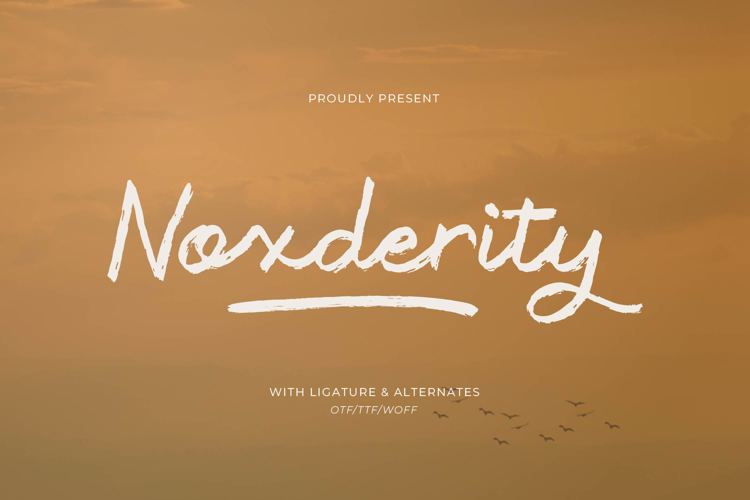
Noxderity Font
Noxderity Brush Font is suitable for any projects such as: logos, branding projects, homeware designs, product packaging, mugs, quotes, posters, shopping bags, t-shirts, book covers, name card, invitation cards, greeting cards, label, photography, watermark, special events, and all your other lovely projects that need a beautiful script taste.